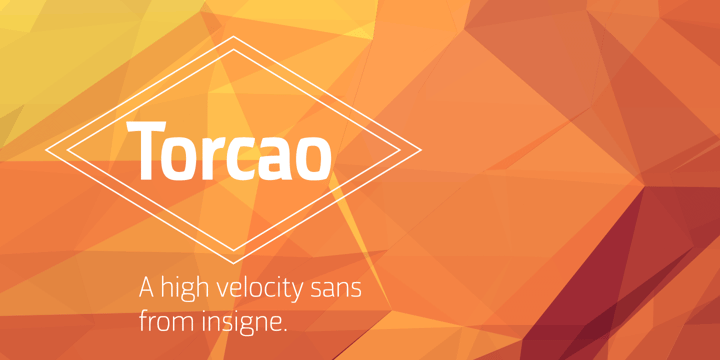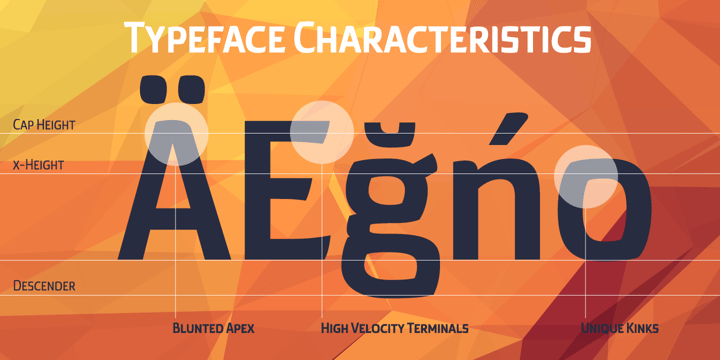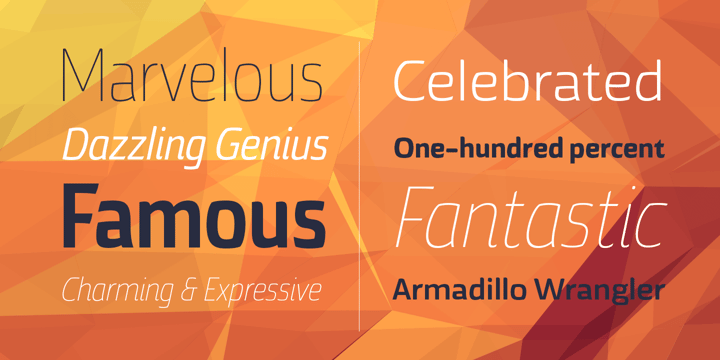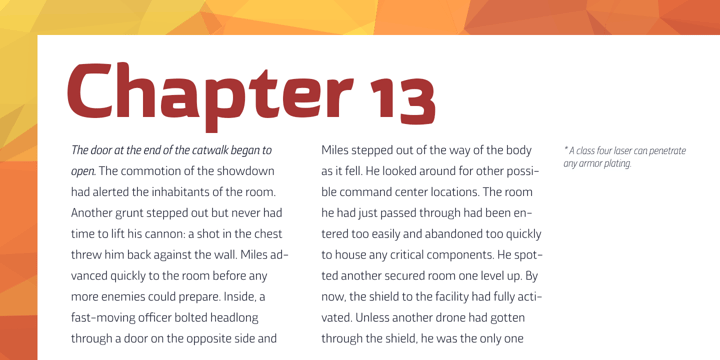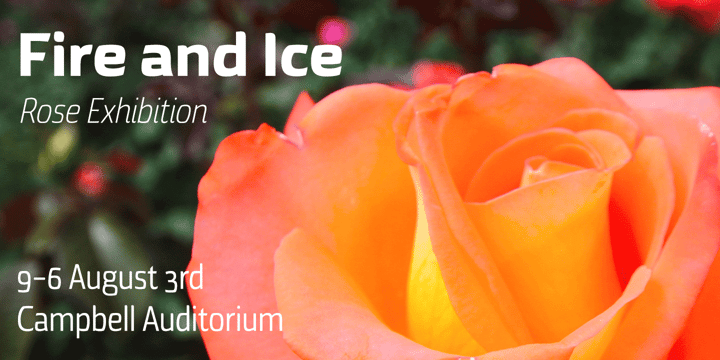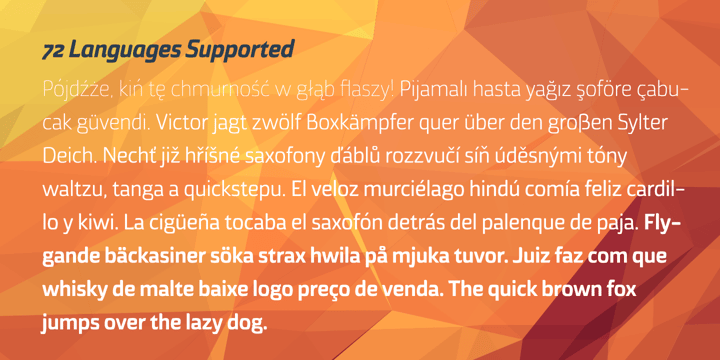
About Torcao
Torcao is one of the sporks of the font universe, a useful and functional outlier. Half square, half circle, this uncommon squircle of a family with its asymmetry of curved and angular shapes drives through headlines and body copy with forward velocity.…